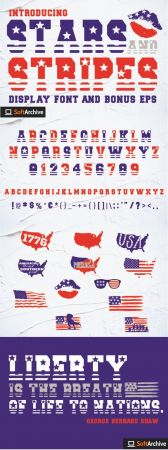
Stars and Stripes is a unique and outstanding display font. Use it for any project that requires an American look and feel! It brings cute extras for your 4th of July crafting projects!